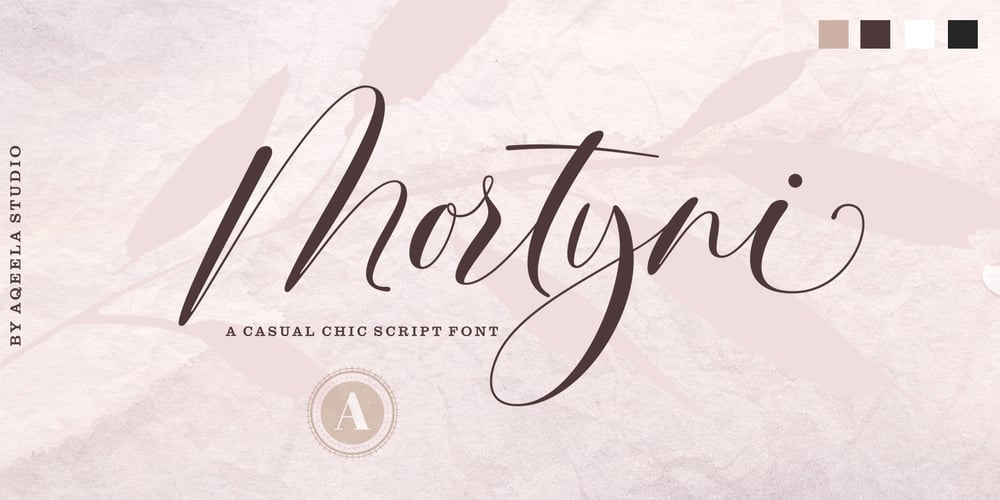
Mortyni Font Family was designed by Muhammad Nasir and published by Aqeela Studio. Mortyni contains 1 styles and family package options. Mortyni is a modern calligraphy font, with characters that dance along the baseline with an elegant touch. It includes OpenType features with stylistic alternates, ligatures and multiple language support. Can be used for various purposes.such as logos, wedding invitation, heading, t-shirt, letterhead, signage, labels, news, posters, badges etc. To enable the OpenType Stylistic alternates, you need a program that supports OpenType features such as Adobe Illustrator CS, Adobe Indesign & CorelDraw X6-X7, Microsoft Word 2010 or later versions. How to access all alternative characters using Adobe Illustrator: https://www.youtube.com/watch?v=XzwjMkbB-wQ Mortyni t is coded with PUA Unicode, which allows full access to all the extra characters without having special designing software. Mac users can use Font Book , and Windows users can use Character Map to view and copy any of the extra characters to paste into your favourite text editor/app. Thanks and happy designing ๐ Enjoy!